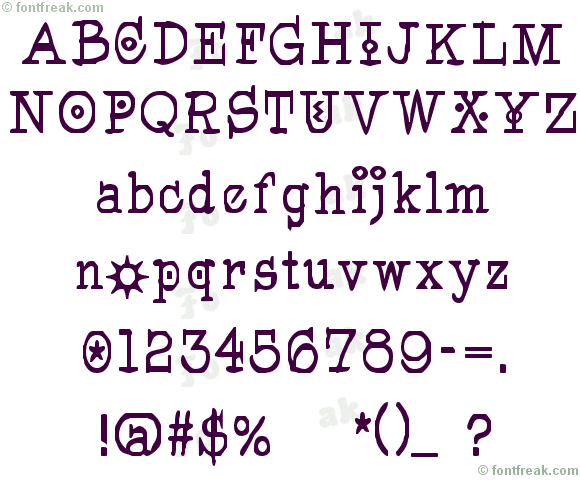
Pegyptienne
About Pegyptienne
Pegyptienne, created by Cybapee Creations in 1999, is a distinctive decorative font that captures a unique blend of artistic flair and readability. This font stands out in the realm of display typefaces, characterized by its bold, exaggerated strokes and whimsical design elements. The stroke weight varies throughout the characters, lending an engaging contrast that catches the eye. The spacing is well-balanced, ensuring that each letter maintains its individuality while contributing to cohesive word forms.
One of the most appealing features of the Pegyptienne font is its decorative elements, which evoke a sense of creativity and playfulness. The characters often feature unique curves and flourishes, making it perfect for projects that require a touch of artistry. This font excels in various applications, particularly in wedding invitations where its charm can enhance the romantic feel. It also works wonderfully for movie posters, giving titles an eye-catching and memorable appearance. Additionally, Pegyptienne is an excellent choice for restaurant menus, as its artistic style can make the dining experience feel more inviting and stylish. Content creators and graphic designers will find this font versatile for social media graphics and promotional materials, where a visually striking typeface can make a significant impact.
In conclusion, Pegyptienne stands out not only for its artistic qualities but also for its versatility across various design applications. Its playful yet sophisticated appearance makes it a valuable addition to any typographic toolkit, ensuring that your creative endeavors will leave a lasting impression.